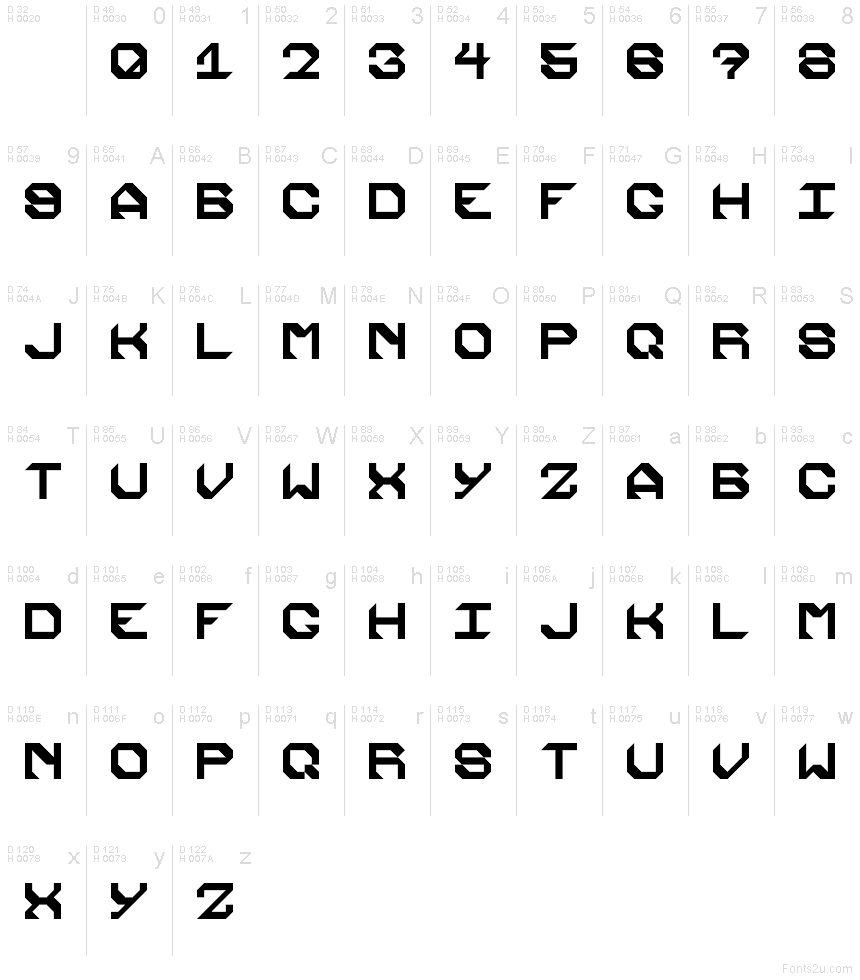
Fluorite
Fluorite font by ItsThatRoboGuy is a free futuristic display typeface with hard-edged geometry and a clean, digital pulse. Its sharp corners, clipped diagonals, and blocky letterforms feel like they were carved from chrome panels, giving every word a cool, sci-fi precision. Wide spacing and sturdy shapes keep it bold and legible even at large sizes, so it holds up beautifully on glowing screens and printed posters alike.
Using Fluorite, you can give instant tech energy to gaming logos, esports branding, sci-fi book covers, UI headers, music artwork, event posters, or YouTube thumbnails. This free font shines when you set it big and let the angular silhouettes do the talking. For body copy, pair Fluorite with a simple, neutral sans serif—something light and unobtrusive—to keep the focus on those striking, futuristic letterforms.